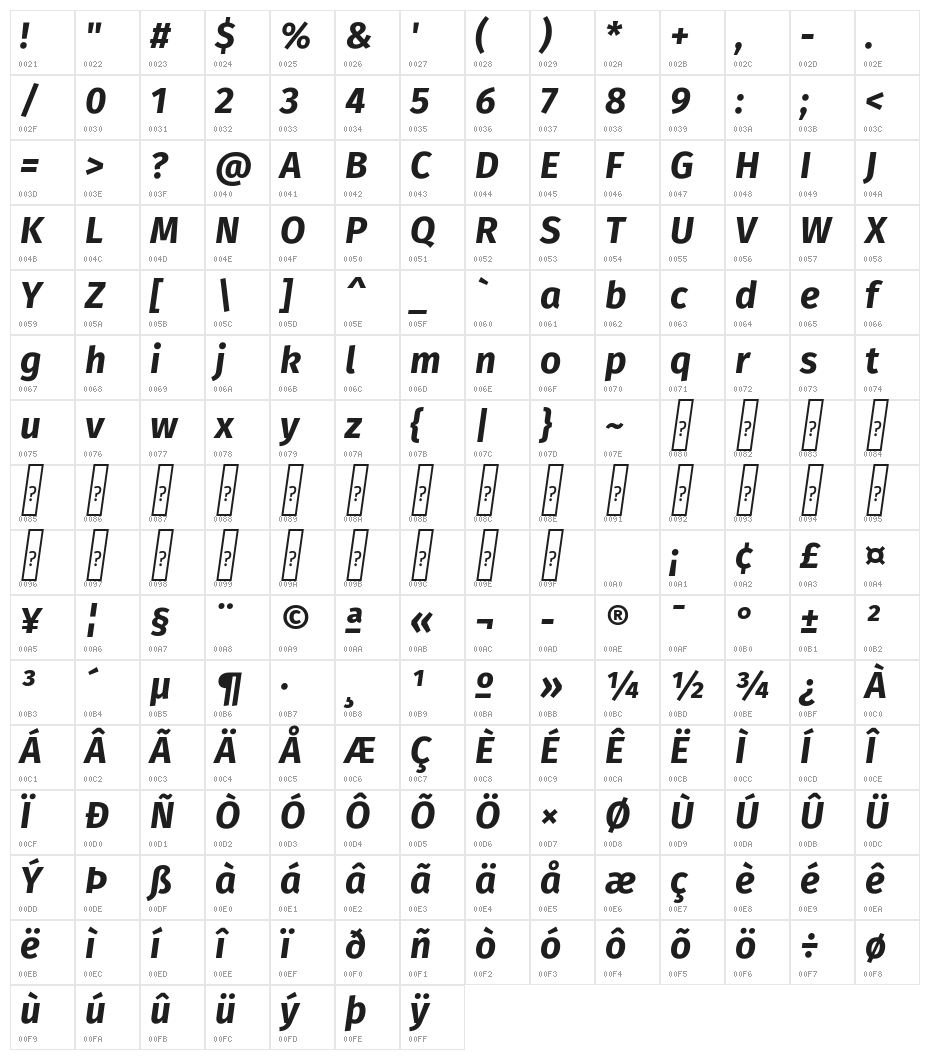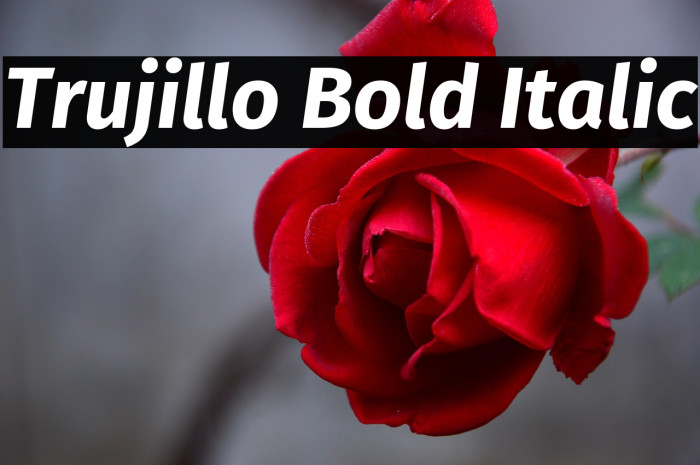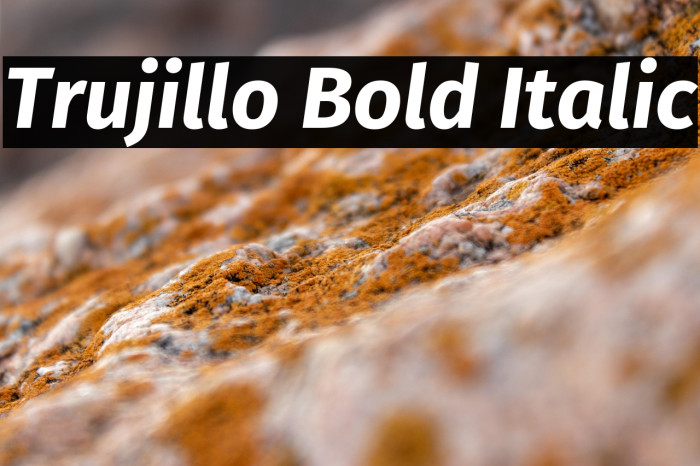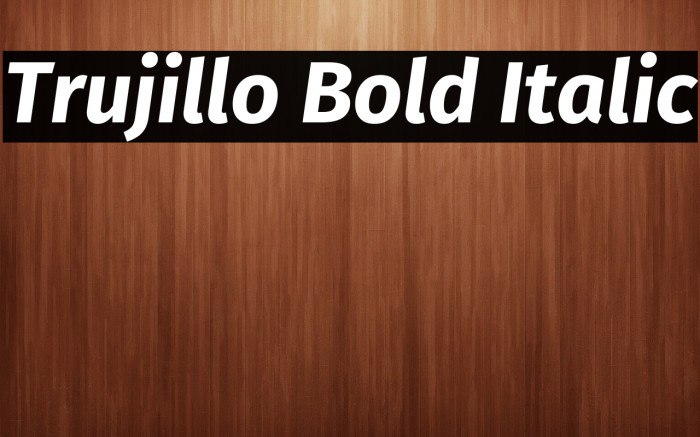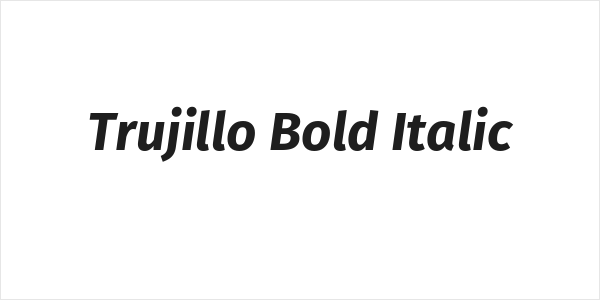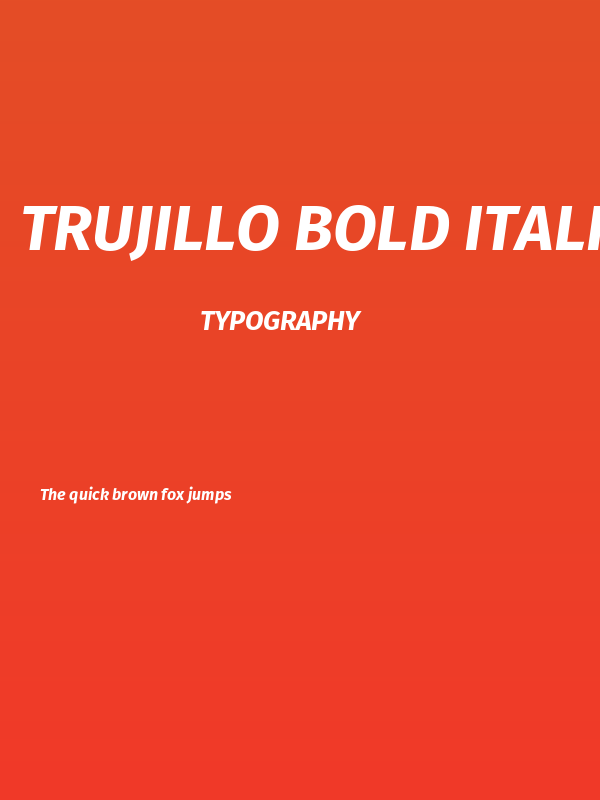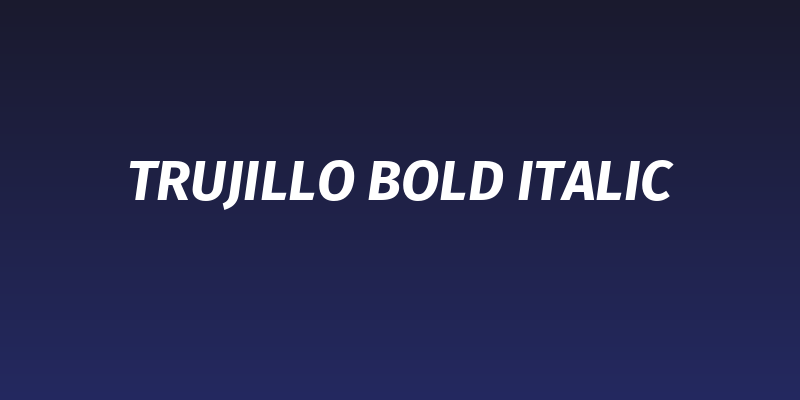
Trujillo Bold Italic Font
Trujillo Bold Italic Description
This font exhibits a bold and italicized style, characterized by its strong presence and dynamic slant. The uppercase letters are robust and assertive, while the lowercase letters maintain a consistent flow, enhancing readability. The numerals are clear and well-defined, making them suitable for various applications. Special characters are distinct and harmonize well with the overall design. The font's bold weight and italic angle give it a modern and energetic feel, making it ideal for attention-grabbing headlines and impactful designs.
| Use Case | Headlines, Logos, Advertising |
| Proposed Projects | Ideal for branding, advertising, headlines, and any design requiring a bold statement. |